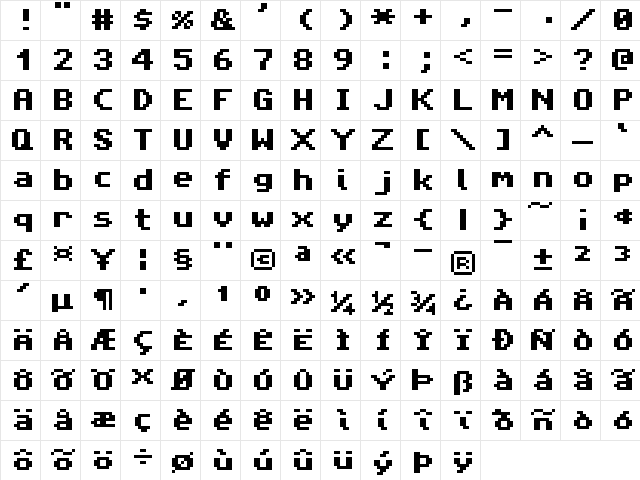
Amiga Forever Pro Regular
| Designer | .:ck!:. |
Design Context for Amiga Forever Pro Typeface
Amiga Forever Pro is a composed and adaptable typeface that performs quietly and consistently across a wide range of design contexts.